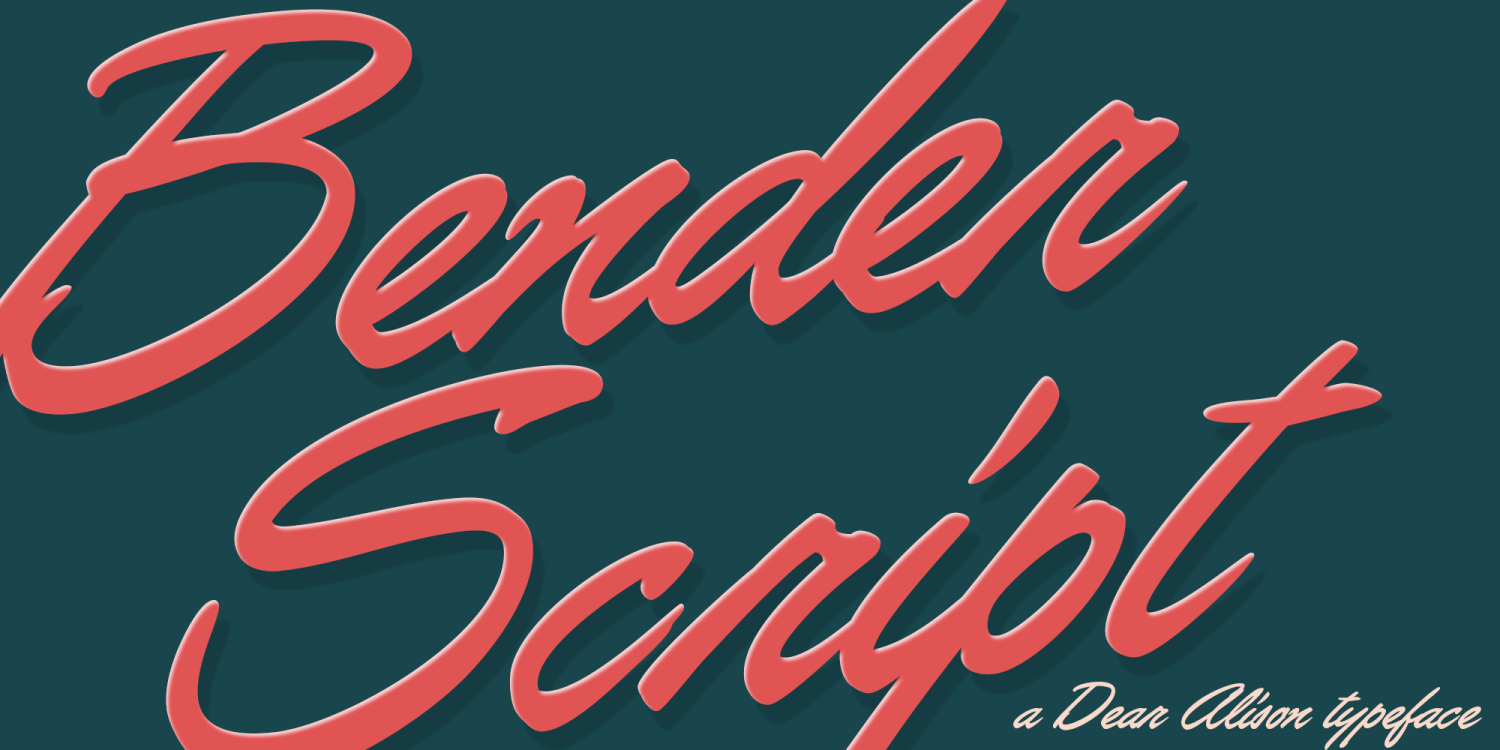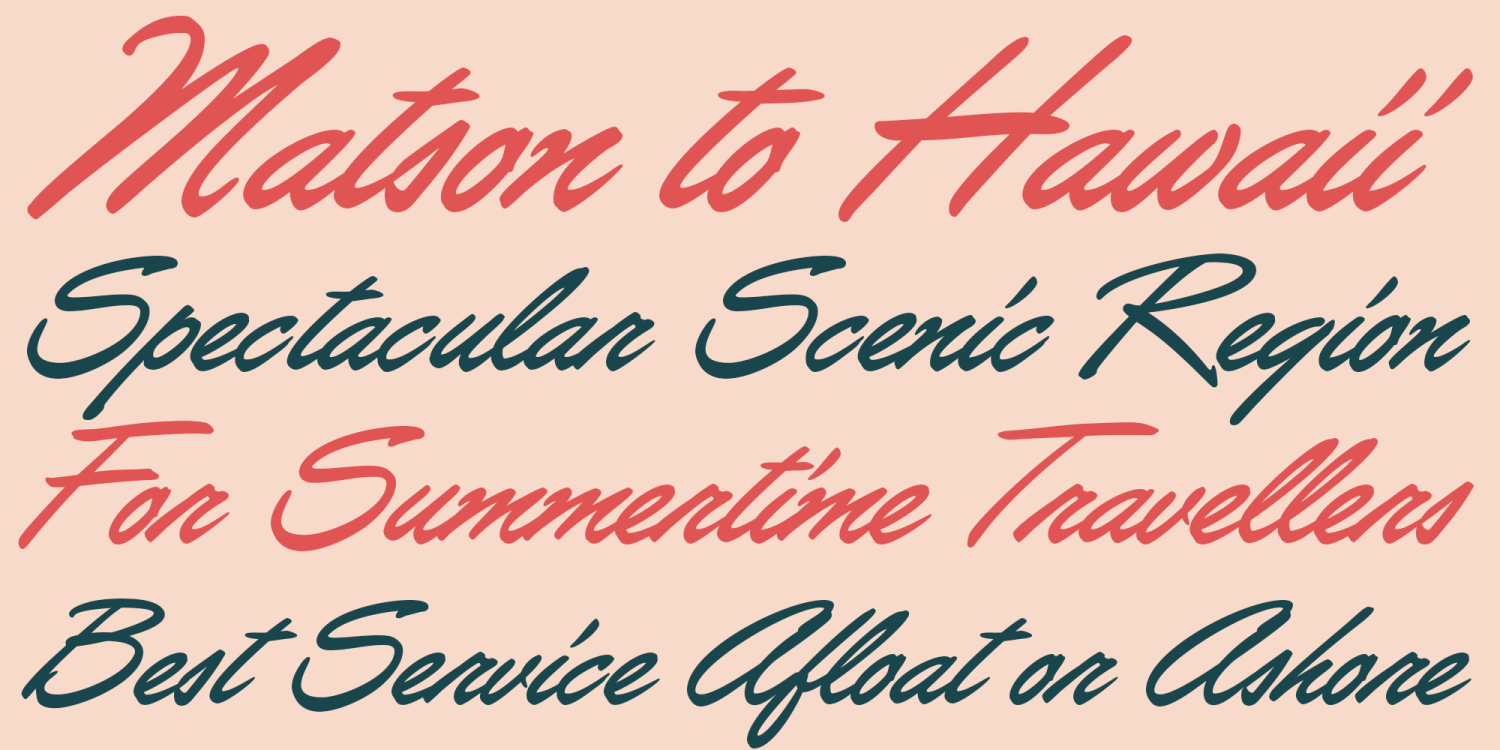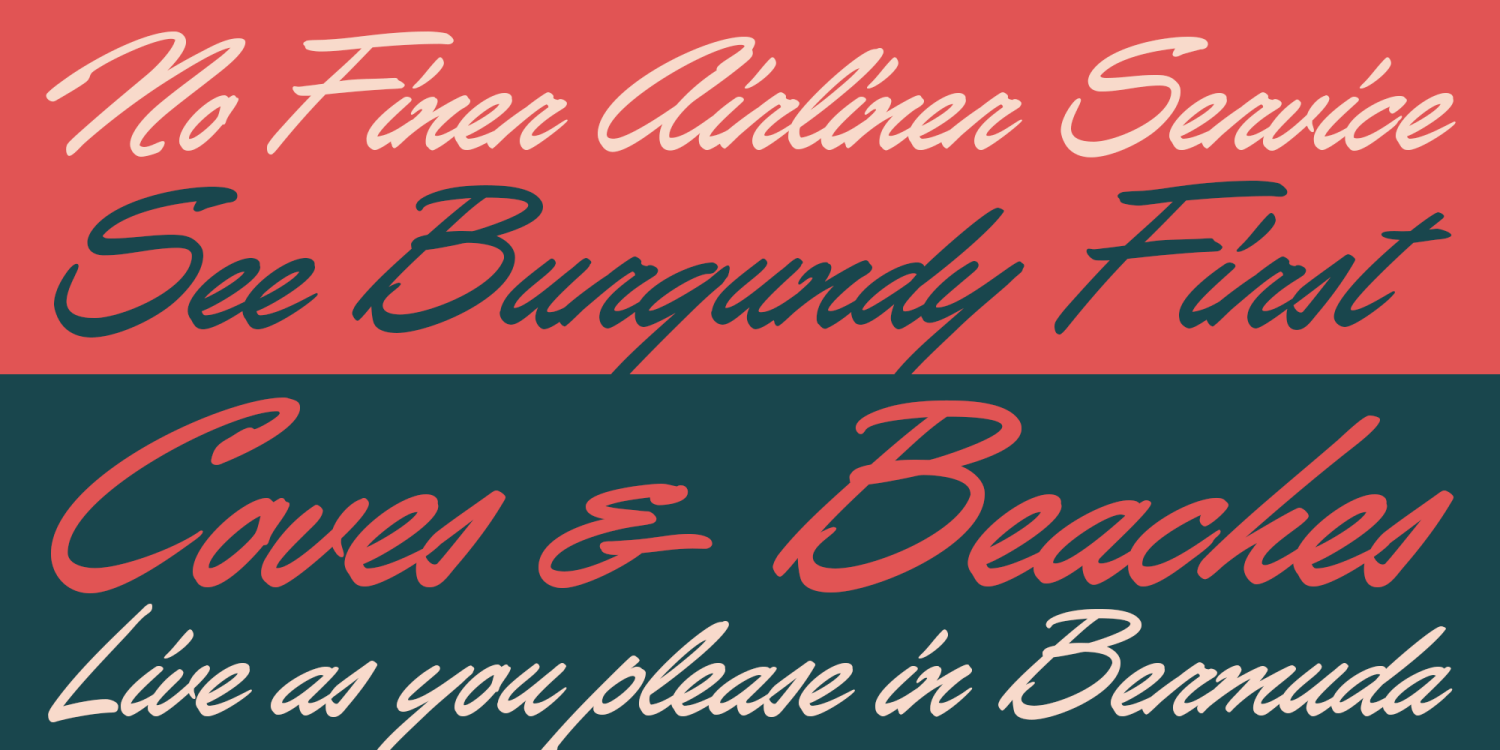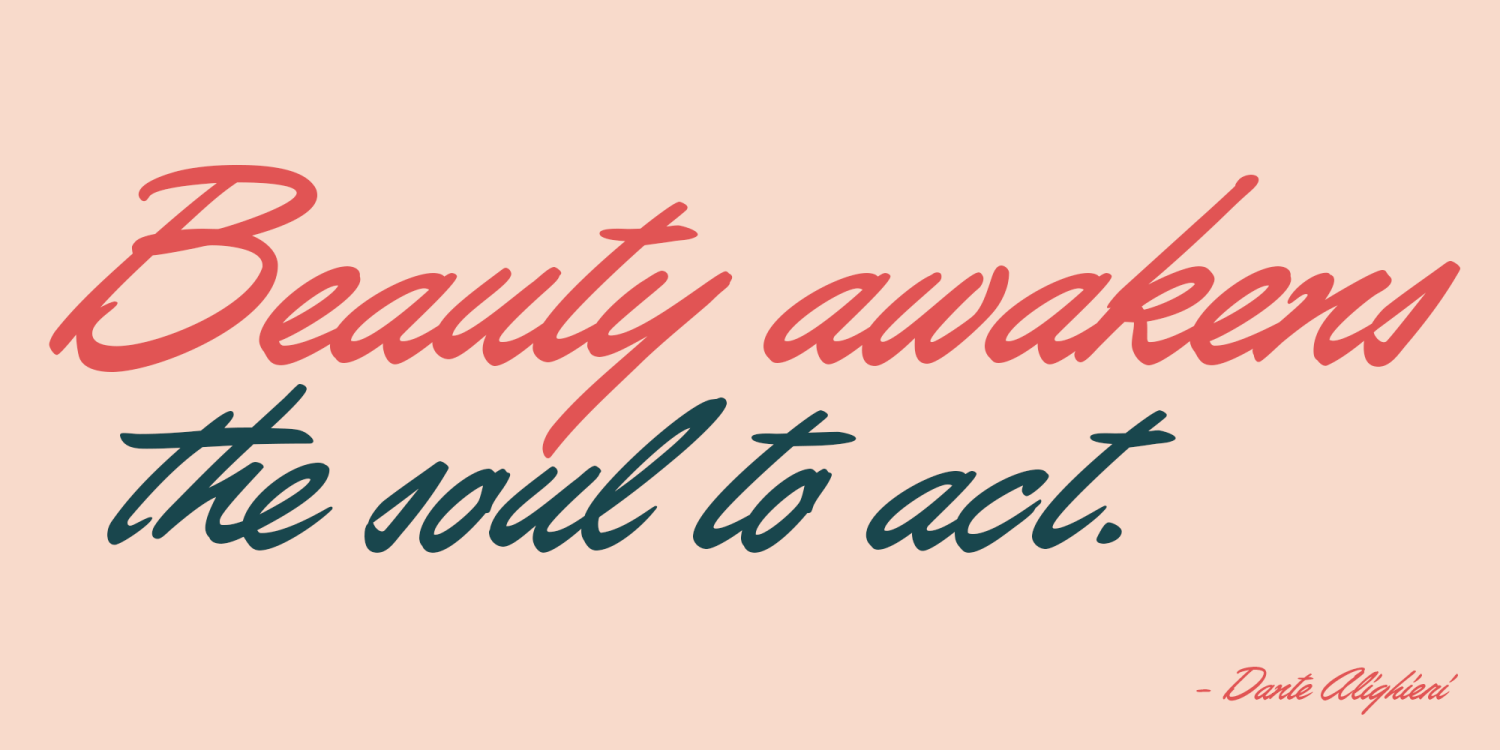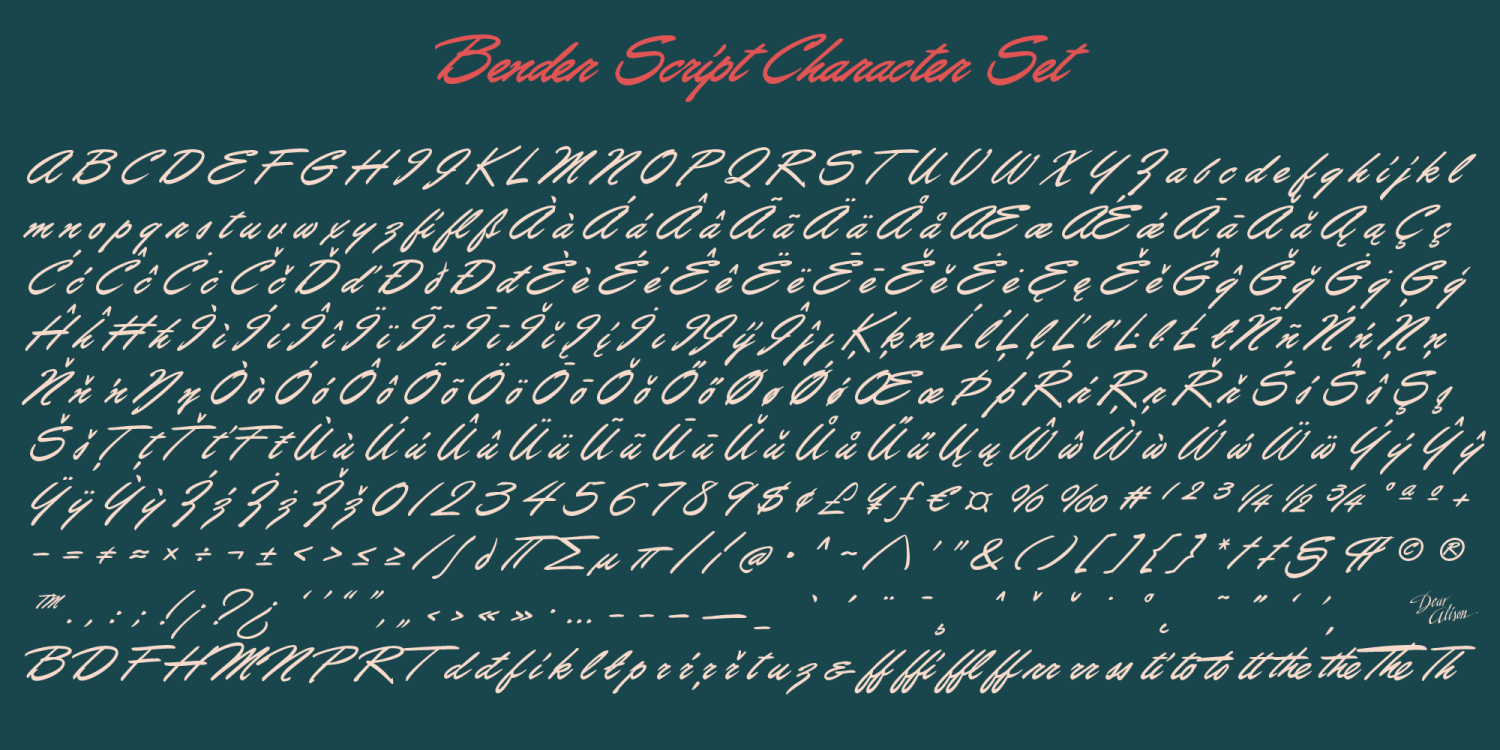
Bender Script
Font Family by Dear Alison
Would you hire one of the top hand lettering artists that worked for companies like Max Factor for your designs? Of course you would! Chas Bluemlein passed away many years back, and you couldn't have afforded his services anyway, but his lettering prowess which graced many advertisements, primarily cosmetic ads, has been pulled together from numerous samples to make this font. Bender Script comes with BONUS Swash alternates to mix up the flavor a bit, and exudes passion and confidence! Now you can own not only a piece of his lettering legacy, but you can also put it to work for you! This beauty is a sure fit into any font collection, so what are you waiting for, buy it today!